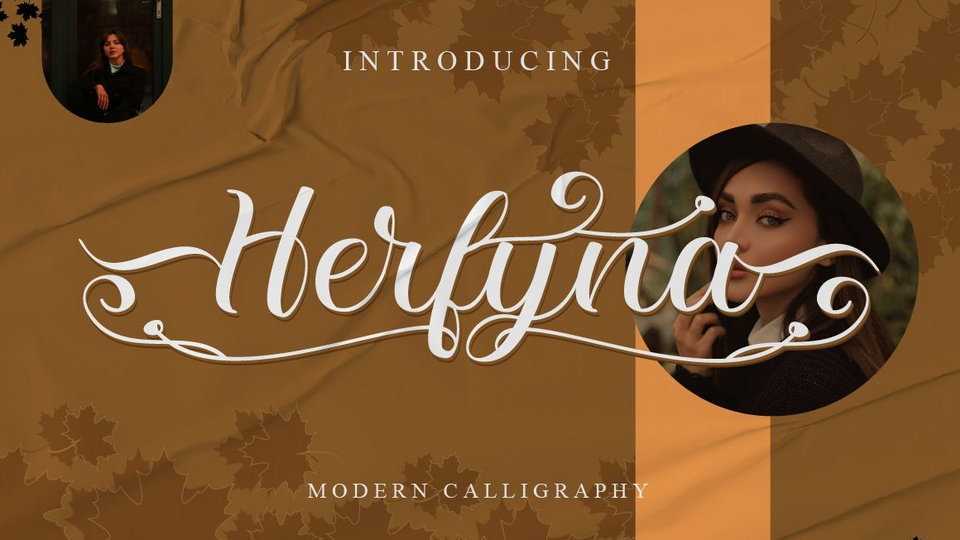
Download Herfyna font, a chic, refined script typeface that emanates sophistication and elegance. Its stylish alternates and ligatures make Herfyna the perfect match for any project.
Designer: Fiqi Febriyanto